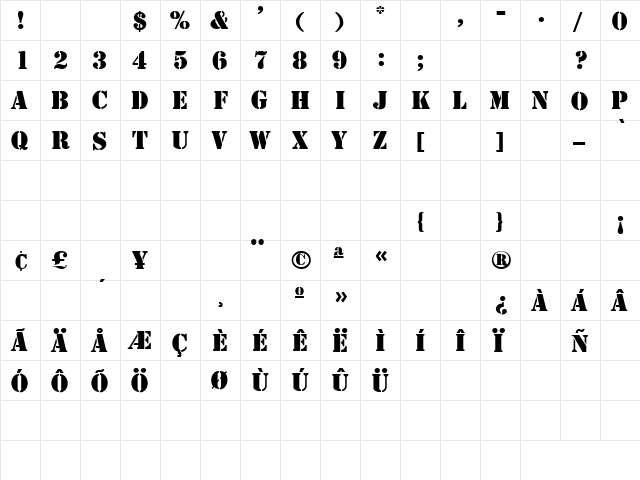
4077th 4077th
Design Context for 4077th Typeface
4077th takes a measured approach to typography — its balanced proportions and neutral character make it a reliable workhorse for both digital and print work.